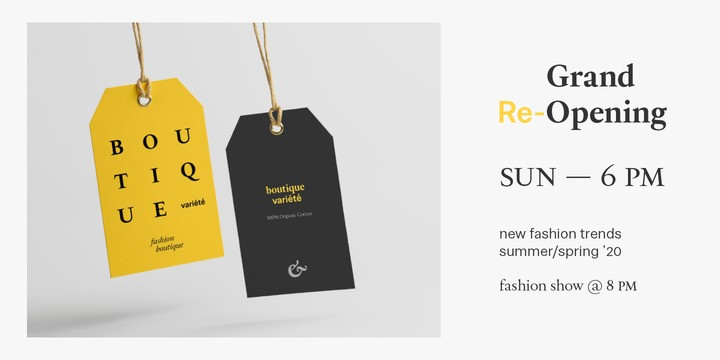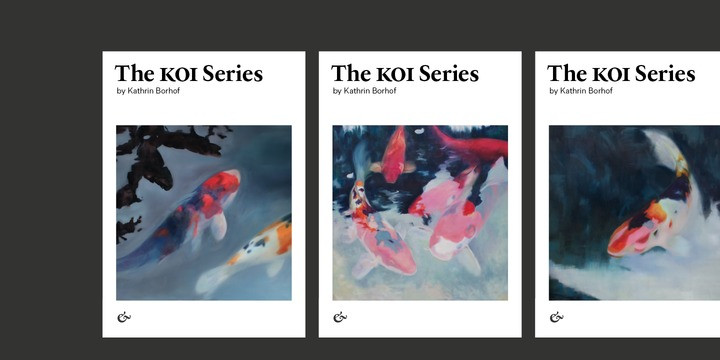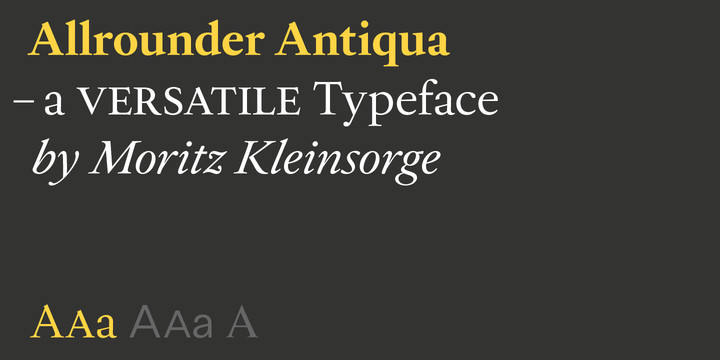
Allrounder Antiqua Font
Allrounder Antiqua is a classic and timeless typeface, perfectly suitable for editorial and brand design. The lowercase a with its small and sharp counter provides a distinctive recognition feature, that will always stand out nicely.
While its main purpose is to set very legible body copy with an even color, its refined shapes also shine in display sizes and let you create elegant packaging, even for food, fashion or consumer goods, and lifestyle branding. It is also suitable as a strong corporate typeface, be it for a more conservative venture or the latest hipster start-up.